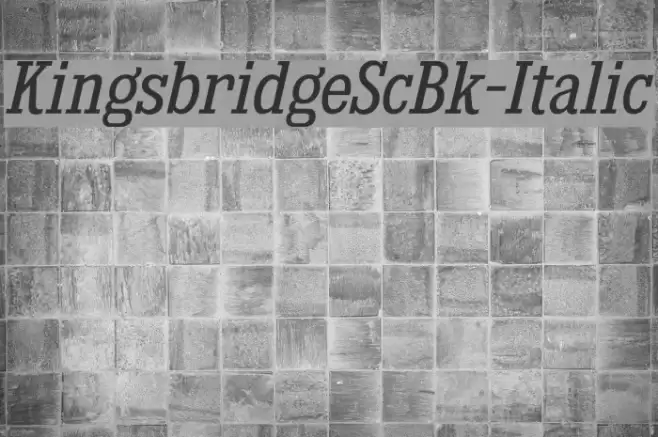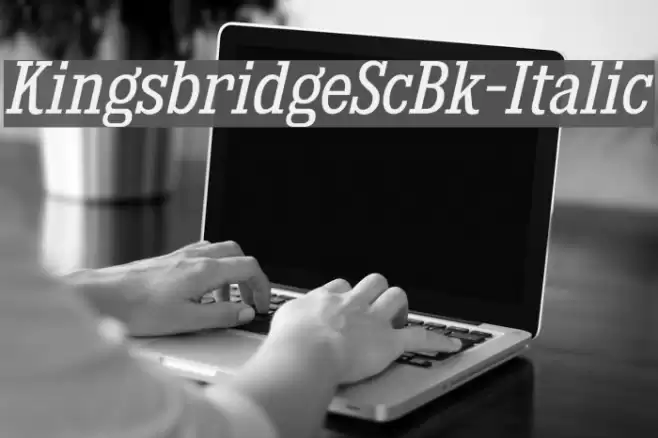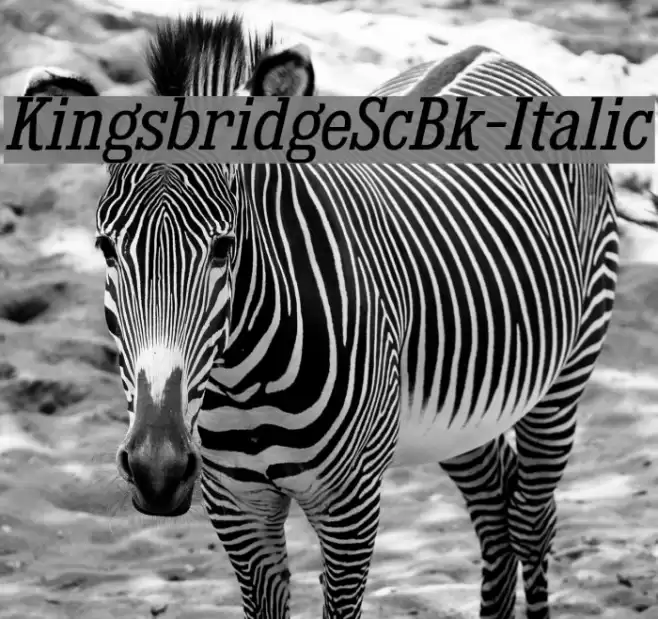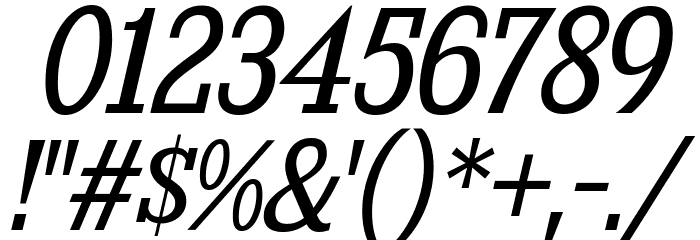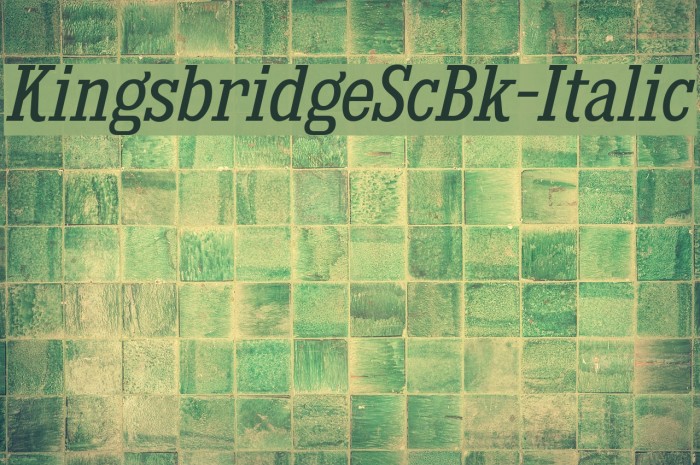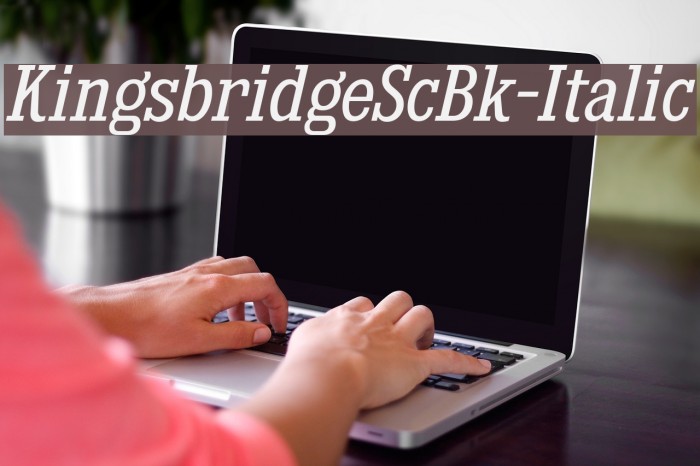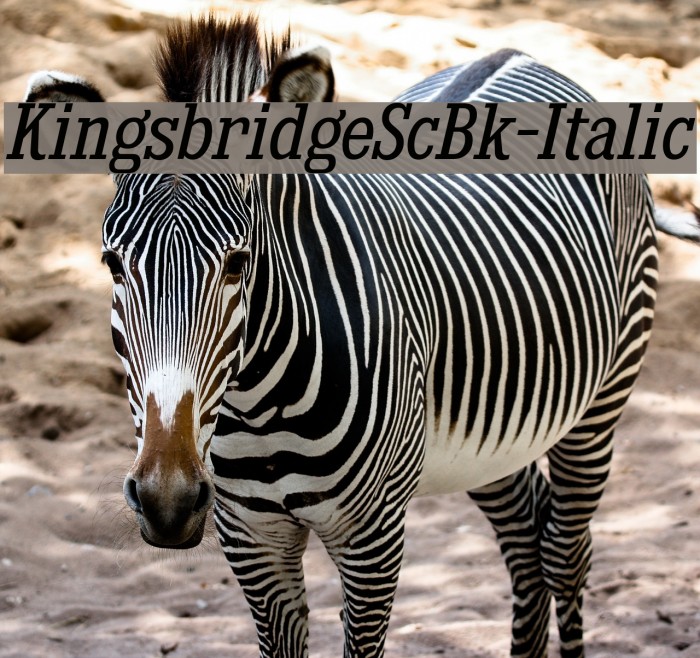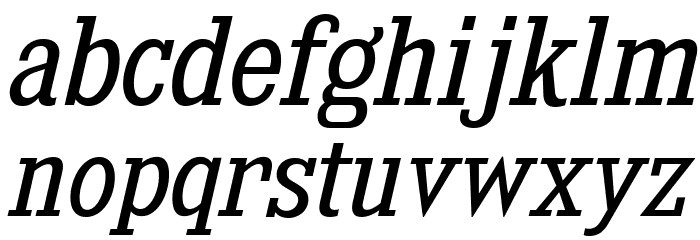
KingsbridgeScBk-Italic Font
KingsbridgeScBk-Italic Description
This font features a classic serif style with a distinct italic slant, giving it an elegant and sophisticated appearance. The characters are well-defined with moderate stroke contrast, providing a balance between readability and style. The uppercase letters are tall and commanding, while the lowercase letters maintain a consistent flow, enhancing the overall legibility. The numerals are clear and proportional, matching the style of the alphabetic characters. Special characters are included, maintaining the font's cohesive design. This font is suitable for projects that require a touch of class and formality.
An elegant serif font with an italic slant, offering a classic and sophisticated look from Serif fonts.
- Proposed Projects: Ideal for formal invitations, editorial design, branding, and elegant signage.
- Overall Style: Classic